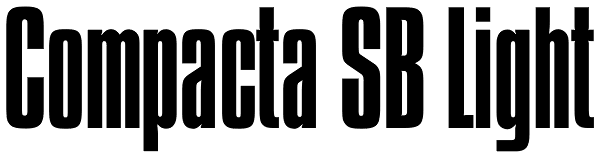
Compacta SB
Since the release of these fonts most typefaces in the Scangraphic Type Collection appear in two versions. One is designed specifically for headline typesetting (SH: Scangraphic Headline Types) and one specifically for text typesetting (SB...